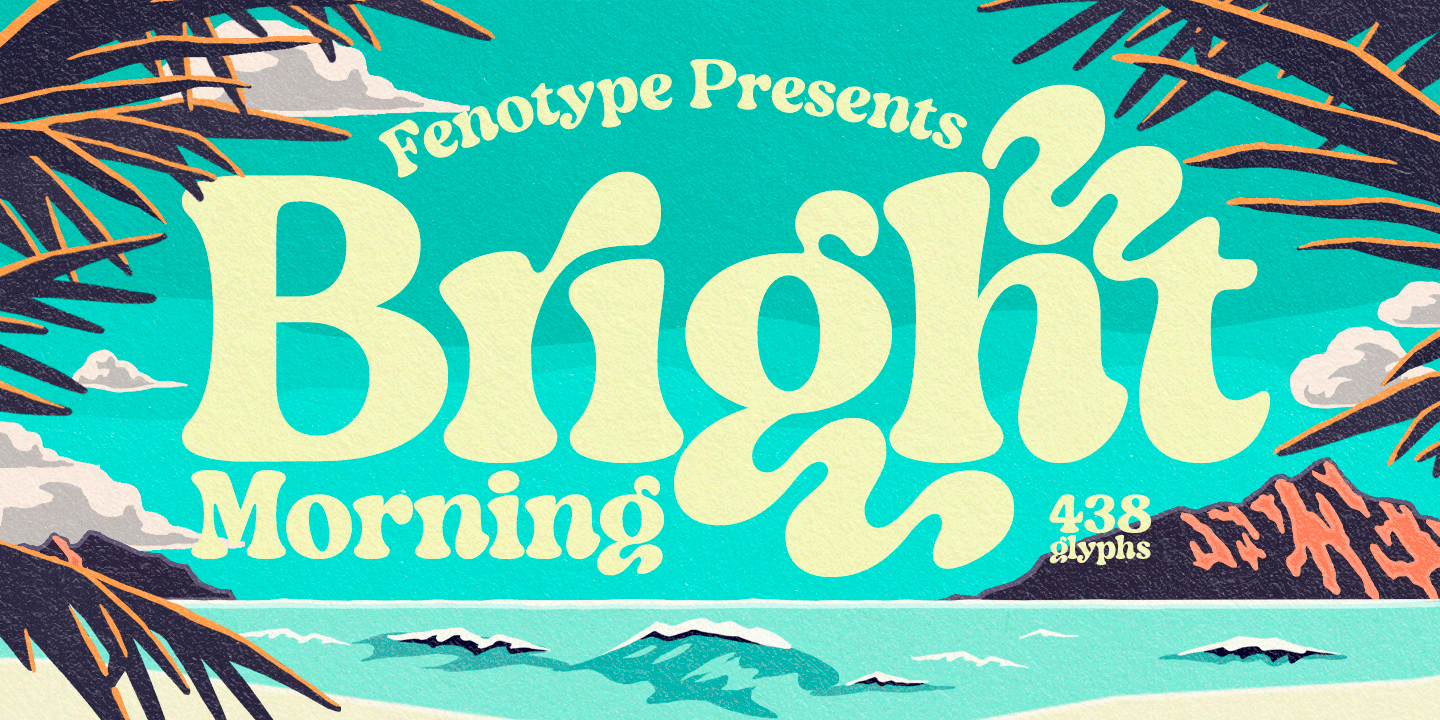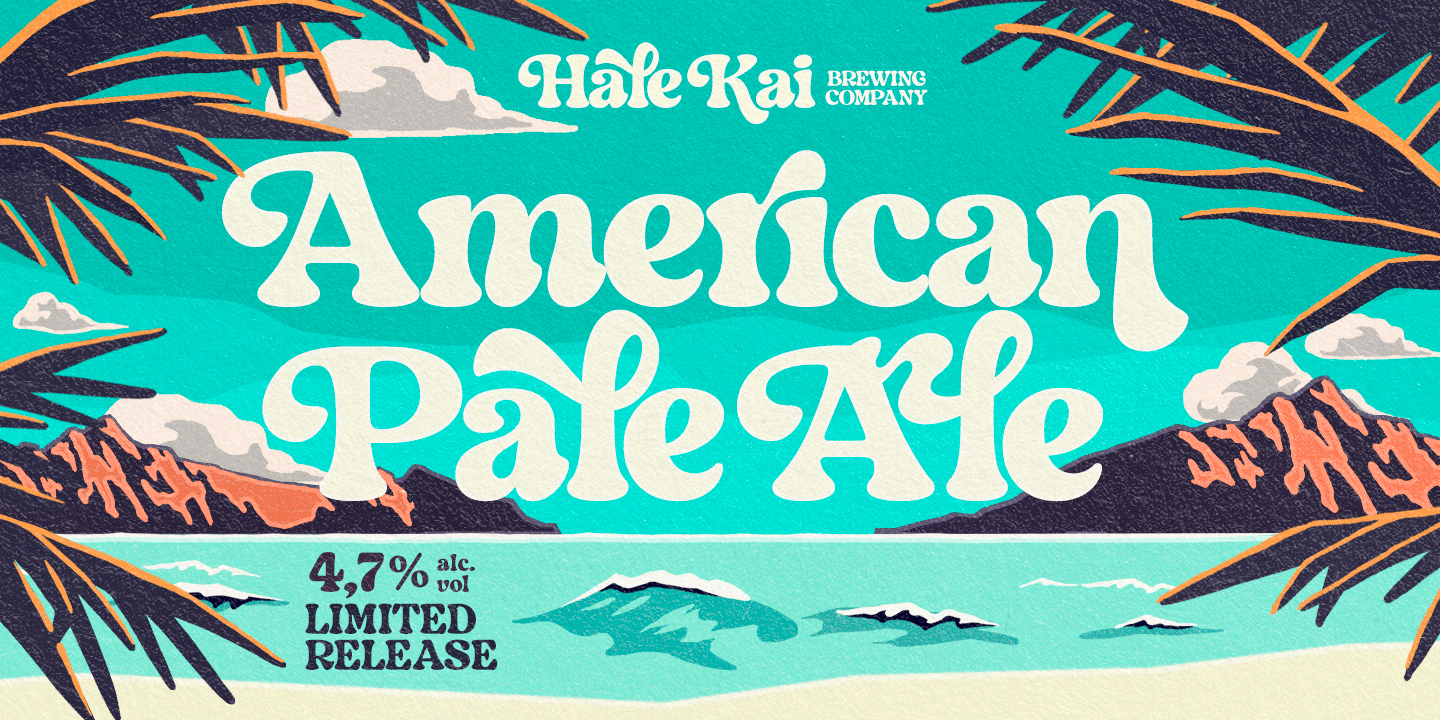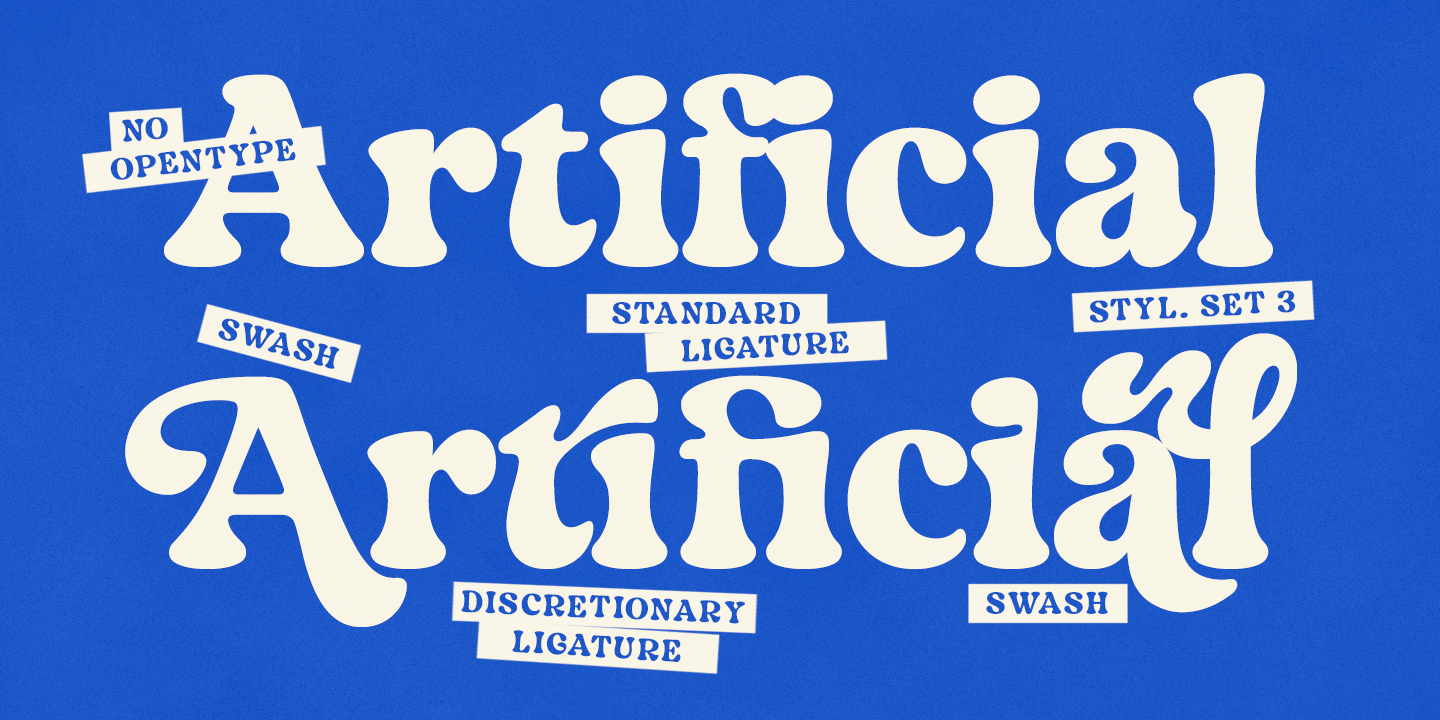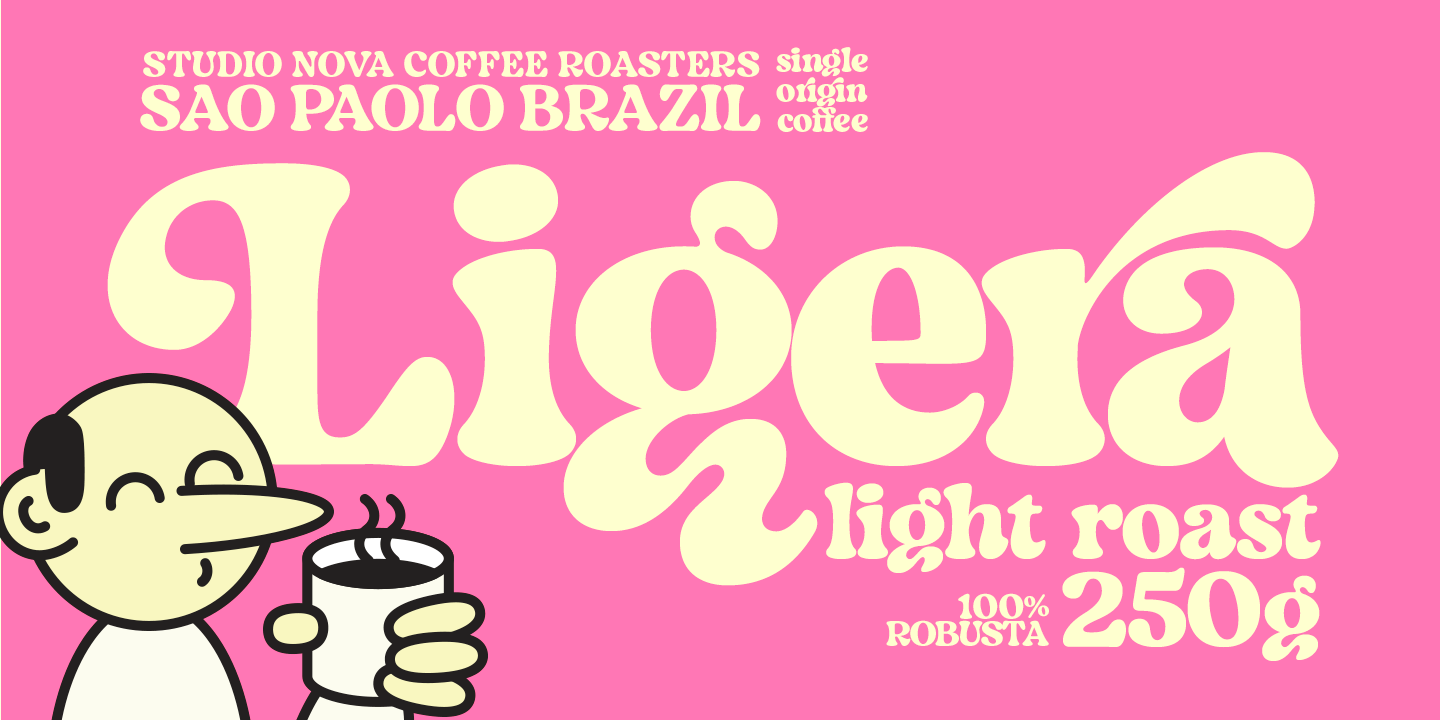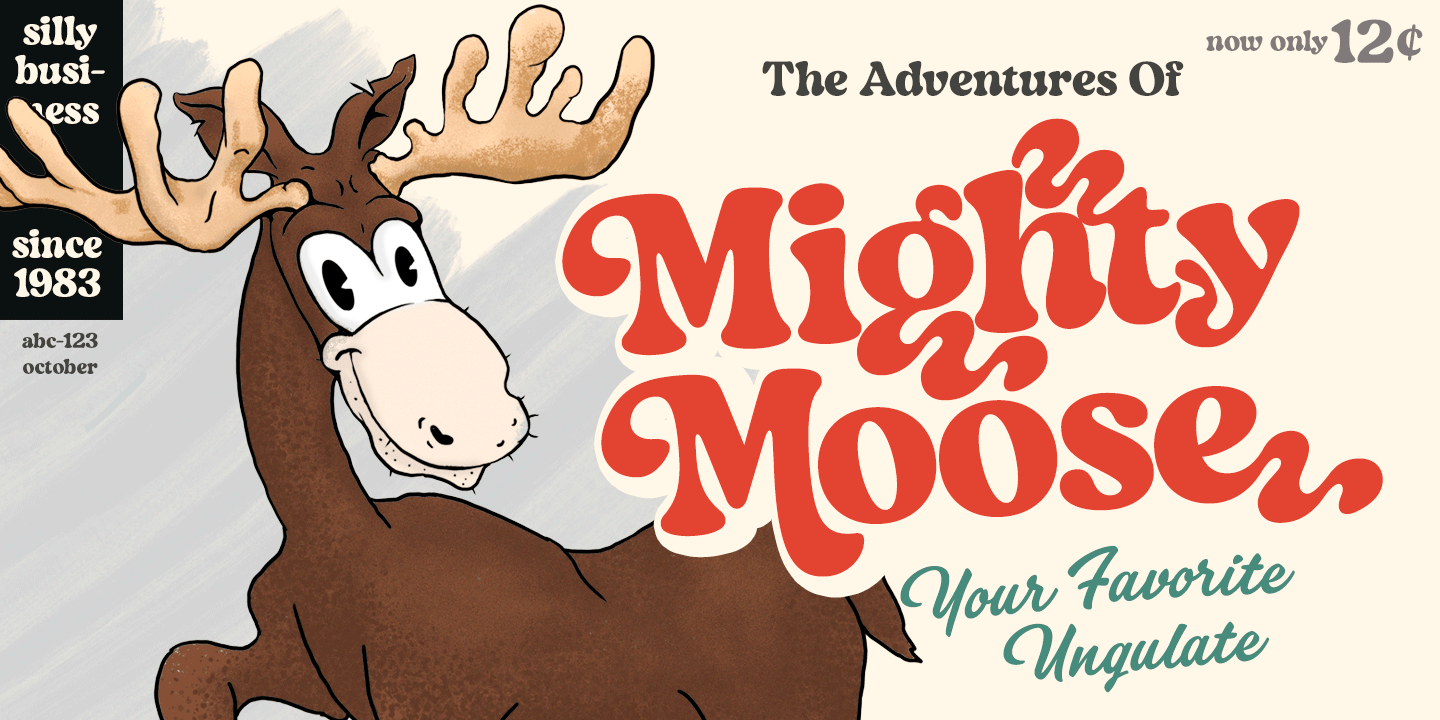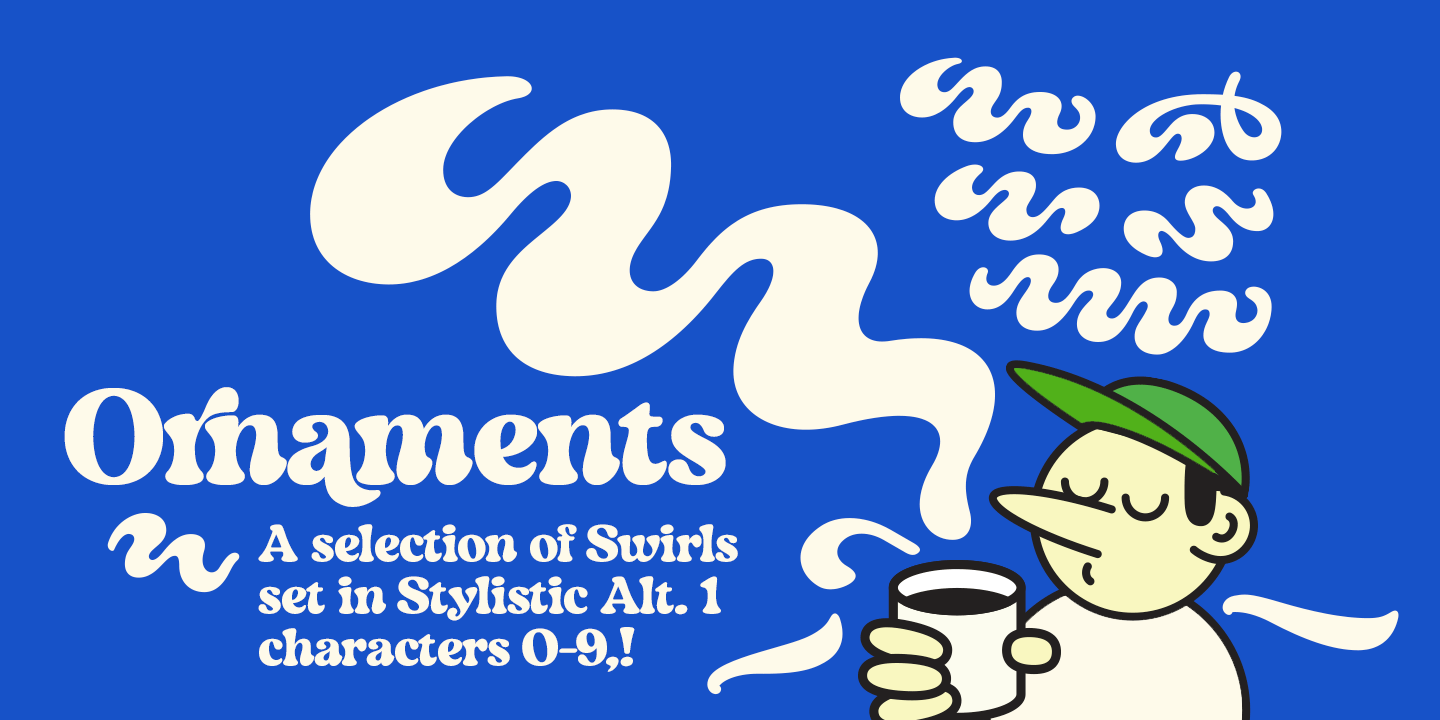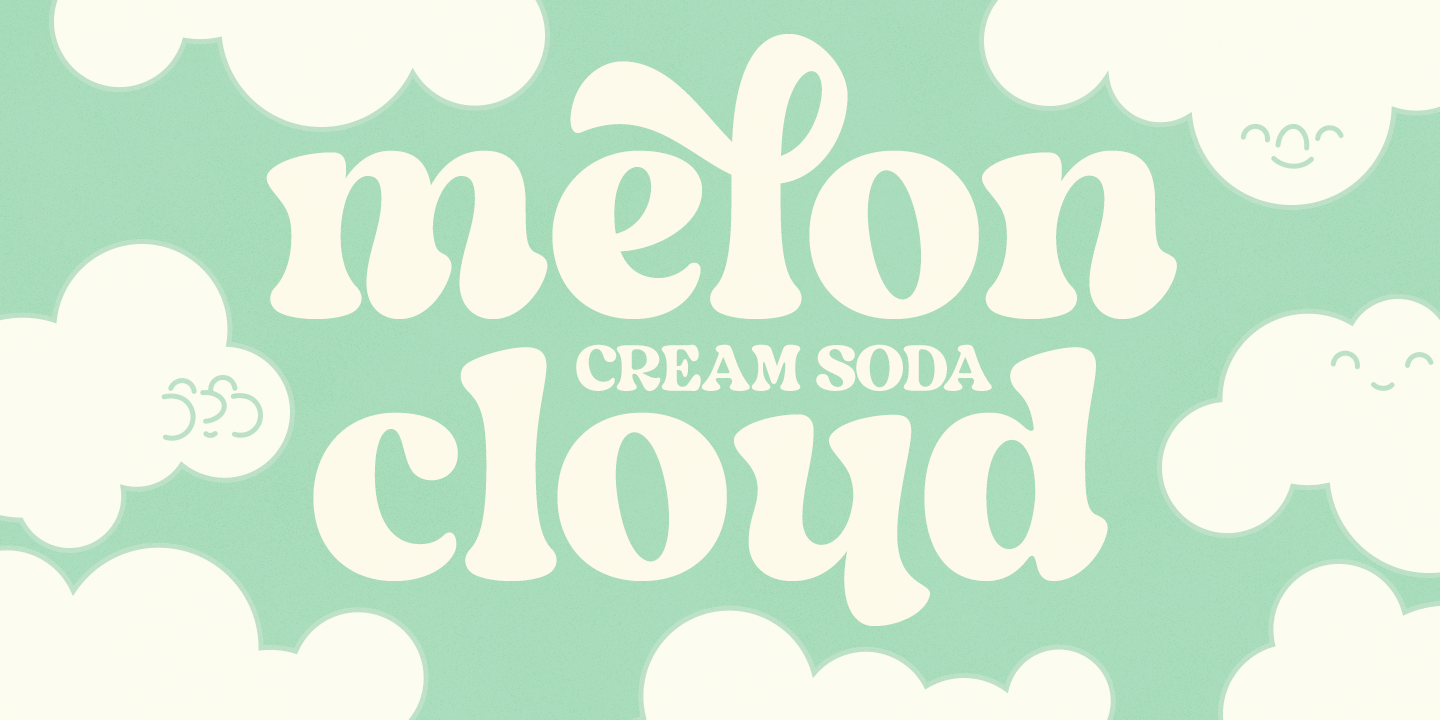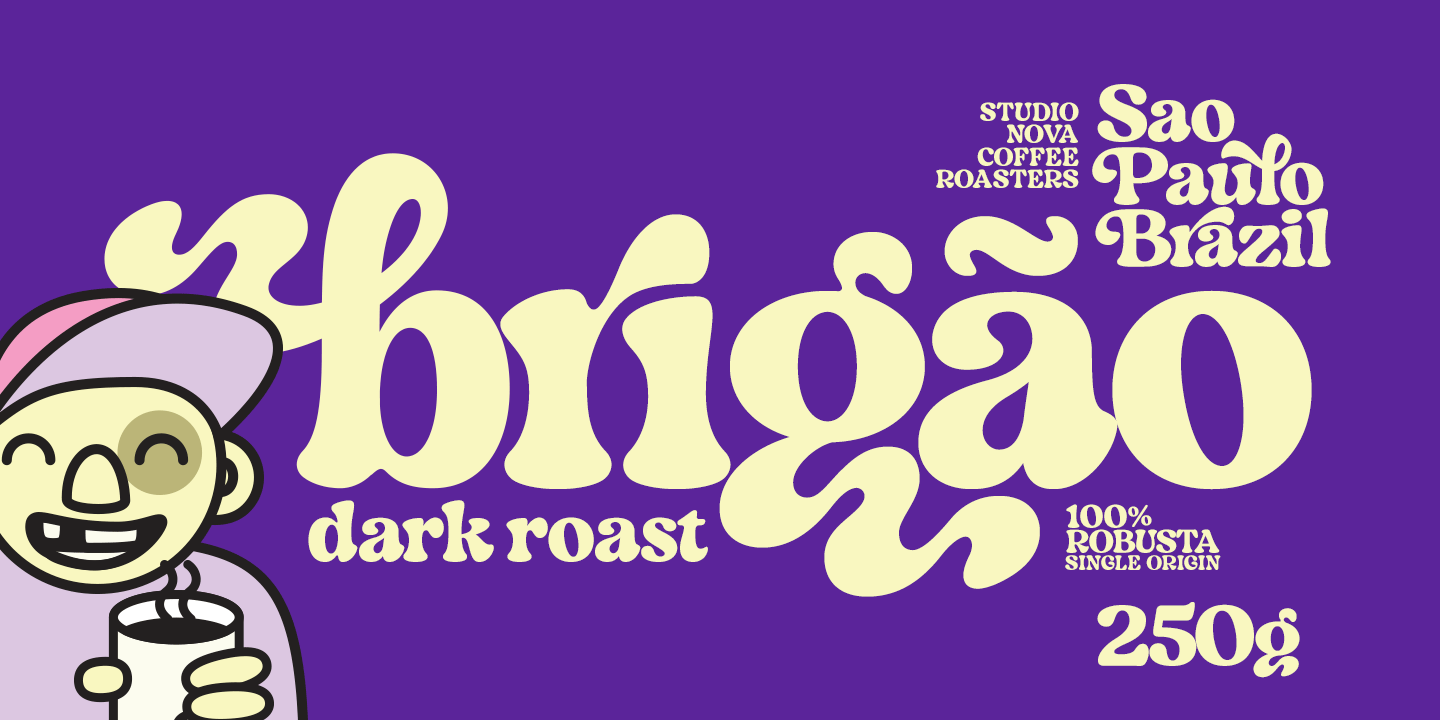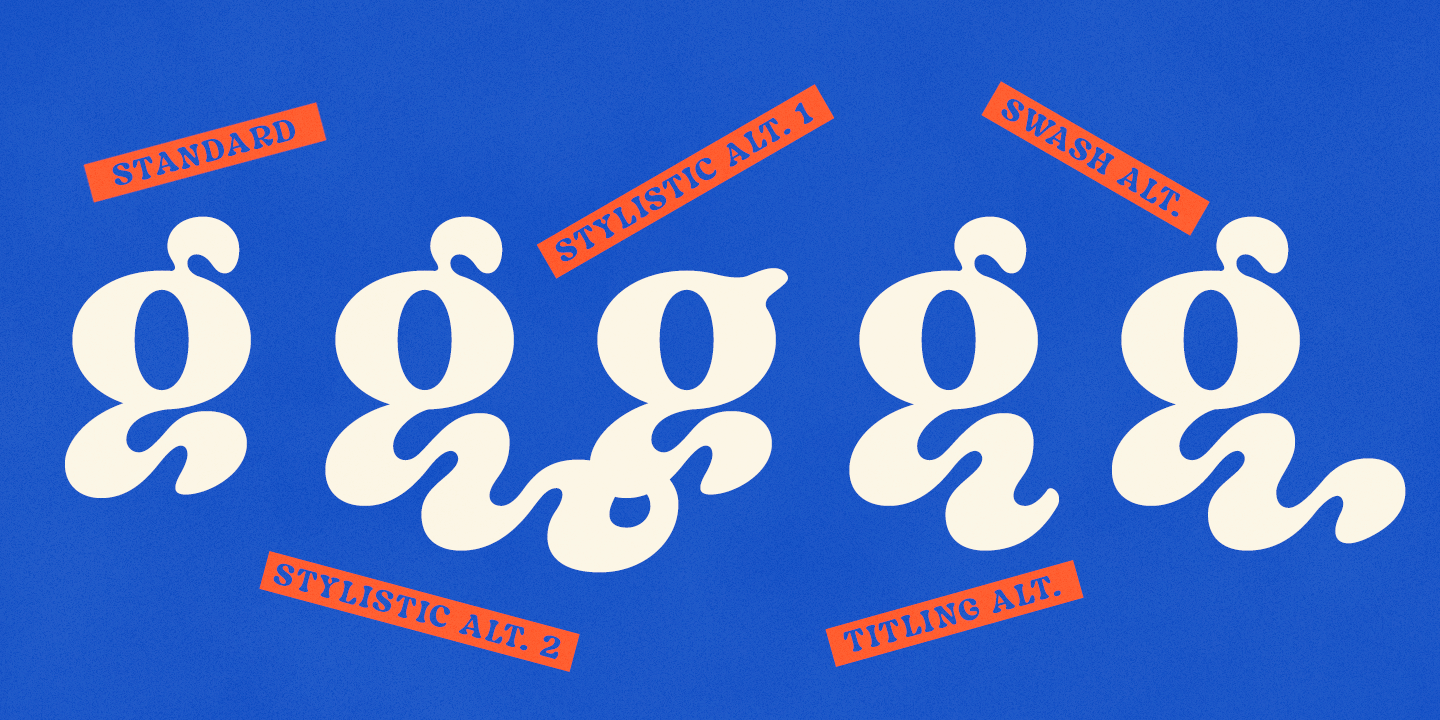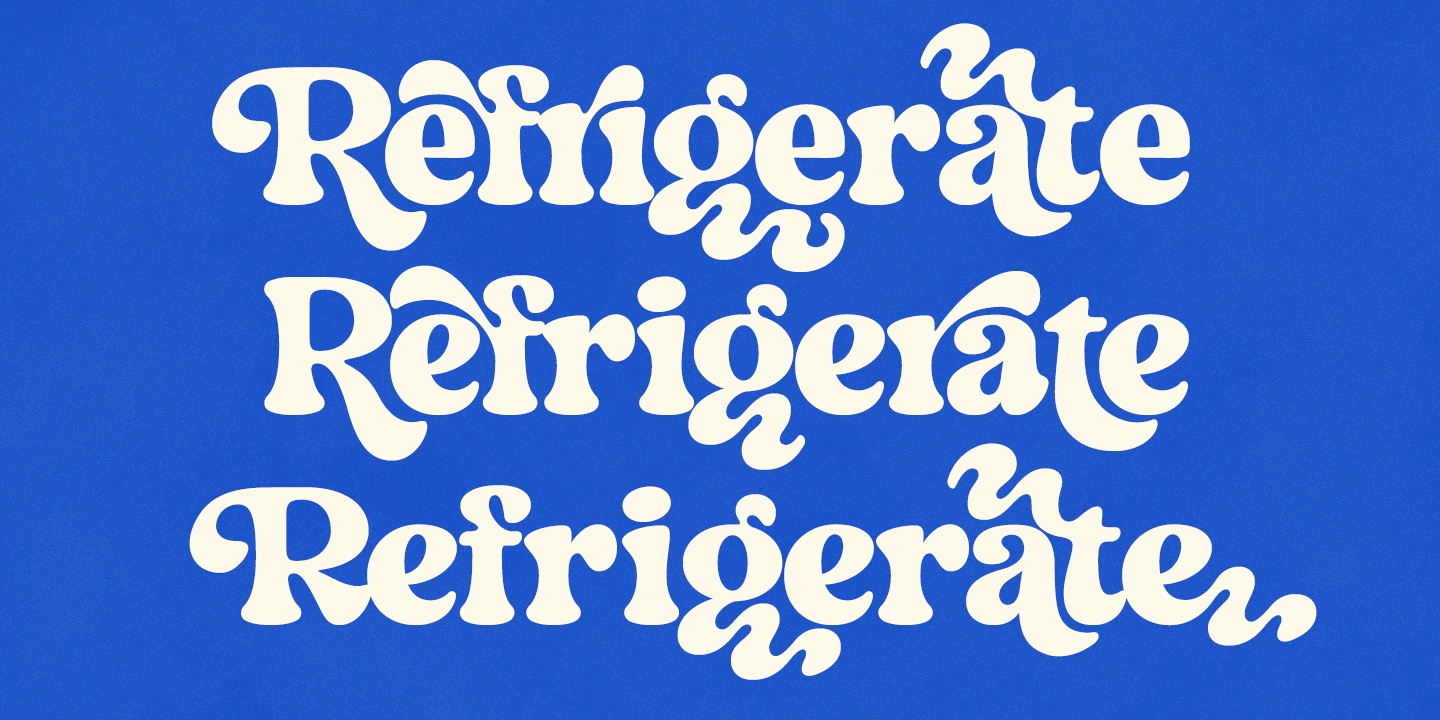
Bright Morning
Font Family by Fenotype
Happy morning! Bright Morning is a bold and plush rounded serif with plenty of nostalgia and a touch of psychedelia. Bright Morning has large h-height making it ideal for large scale display use. By applying OpenType - features, you can squeeze the letters even tighter together, placing lowercase a, c, e, m, n, o, p, r, s, u, v, w, x, y, or z under the vertical extensions of Swash "r" or "f" - for example, to make the text even bigger!
Bright Morning is equipped over 100 alternate characters that you can use to make customized headlines. Access the alternates in any OpenType -savvy software from Swash or Titling Alternates, several Stylistic Sets & Discretionary Ligatures.